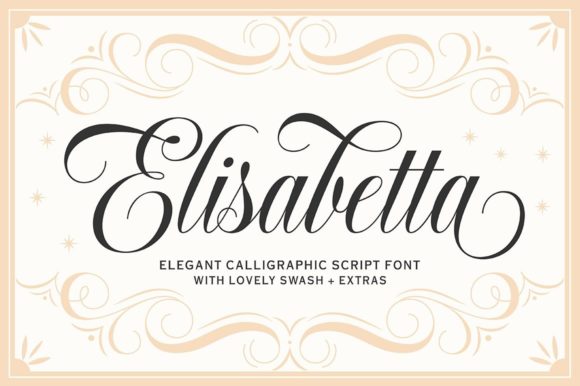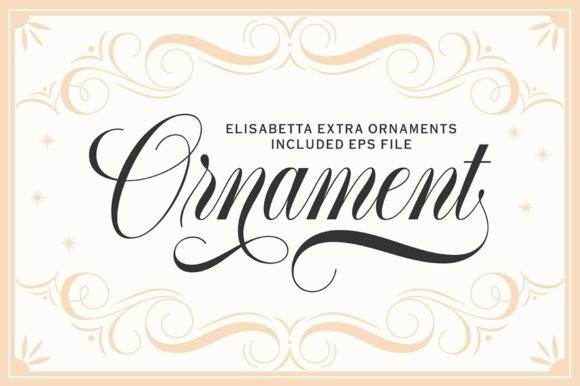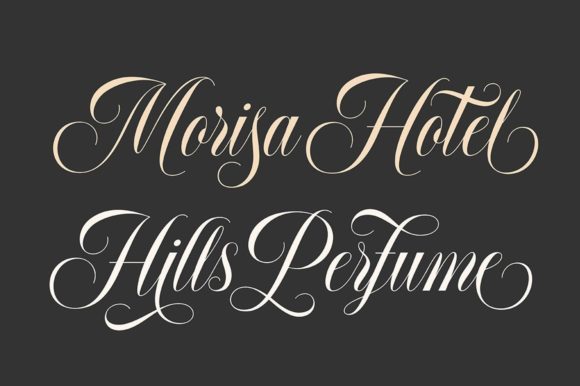
About Elisabetta Script Font
Elisabetta Script is a meticulously crafted handwritten font that strikes a perfect balance between elegance and subtlety. Every detail of this font has been thoughtfully designed to ensure maximum impact and exceptional results in your design projects.
With its graceful strokes and delicate curves, Elisabetta Script exudes a sense of sophistication that can enhance the overall aesthetics of any creative endeavor. The font’s well-balanced form ensures that it adds a touch of class to your designs without overwhelming their visual appeal.
Elisabetta Script’s PUA encoding enables you to effortlessly access a wide range of glyphs and swashes, allowing you to customize and embellish your text with beautiful flourishes and variations. This feature empowers you to create truly unique and personalized designs that reflect your artistic vision.
Whether you’re working on wedding invitations, branding materials, logos, greeting cards, or any other project that demands a refined and elegant touch, Elisabetta Script is an invaluable asset. Its versatility allows it to seamlessly adapt to various design contexts, making it suitable for both print and digital applications.
Incorporating Elisabetta Script into your designs not only elevates their visual appeal but also communicates a sense of care and attention to detail. The font’s timeless and graceful appearance can make your projects stand out and leave a lasting impression on your audience.
From the subtlety of its letterforms to the fluidity of its strokes, Elisabetta Script captures the essence of handcrafted elegance. It brings a human touch to your designs, making them more relatable and engaging. This font embodies the delicate balance between classic charm and contemporary finesse, making it a versatile and indispensable tool for creative expression.